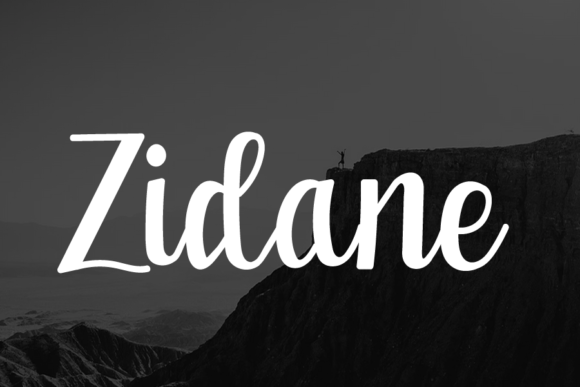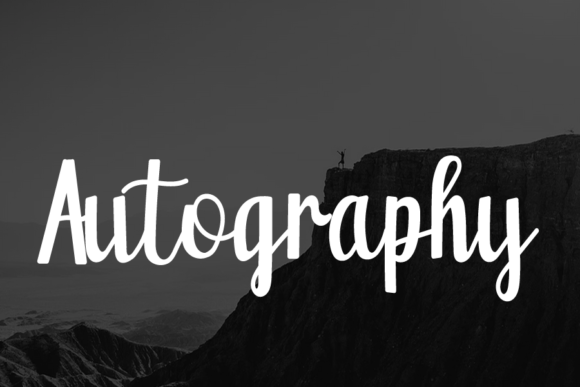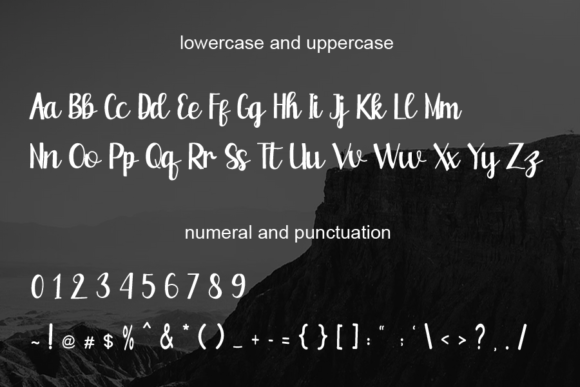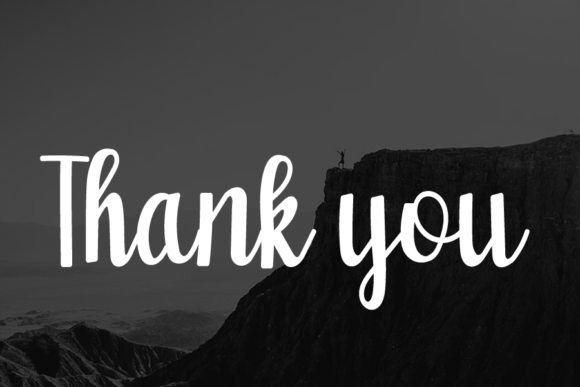
Zamora Font
About Zamora Font
Zamora is a cute, fun, and friendly handwritten font. Whether you’re using it for crafting, digital designing, presentations, or greeting card making, it’s perfect!